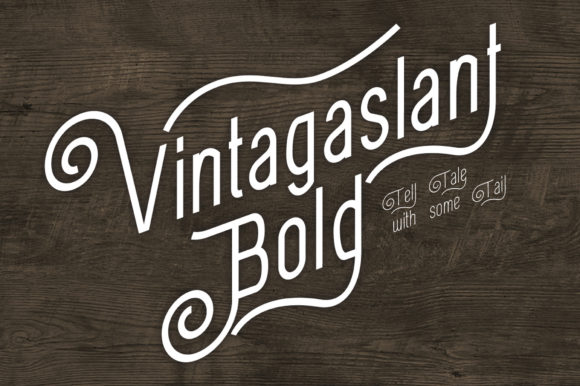
**VintagaSlant Bold: A Nostalgic Masterpiece for Timeless Creations**
Immerse yourself in the enchanting world of VintagaSlant Bold, a display font that evokes the charm of bygone eras. Its graceful curves and retro undertones exude an aesthetic allure that will captivate your designs.
Whether you're crafting eye-catching posters for art exhibitions or designing elegant invitations that evoke a sense of nostalgia, VintagaSlant Bold possesses the versatility to elevate your creations to new heights. Its subtle slant adds a touch of dynamism, while its timeless appeal guarantees a lasting impact.
**Unleash the Power of Expression**
With VintagaSlant Bold at your disposal, you hold the key to unlocking a world of creative possibilities. Its effortless elegance lends itself to a wide range of design styles, including vintage-inspired logos, captivating social media graphics, and unforgettable branding materials.
As you navigate its meticulously crafted glyphs and swashes, you'll discover a treasure trove of expressive and playful elements. Each letterform dances upon the page with a whimsical grace, inviting you to experiment and create visuals that resonate with your audience.
**A Font for the Ages**
VintagaSlant Bold transcends time, effortlessly adapting to both classic and contemporary design aesthetics. Its delicate strokes and retro charm imbue a sense of heirloom quality, ensuring that your creations will endure as timeless works of art.
Let VintagaSlant Bold be your muse as you embark on a journey of creativity and inspiration. Its versatility and timeless appeal make it an indispensable tool for any designer seeking to evoke emotions and connect with their audience.
**Experience the VintagaSlant Bold Difference**
As a PUA-encoded font, VintagaSlant Bold empowers you to unleash your imagination with ease. Accessing its full repertoire of glyphs and swashes is a seamless process, allowing you to effortlessly incorporate intricate flourishes and embellishments into your designs.
Join the ranks of discerning designers who have embraced VintagaSlant Bold as their font of choice. Allow its timeless beauty to elevate your creations and leave an enduring impression on your audience.